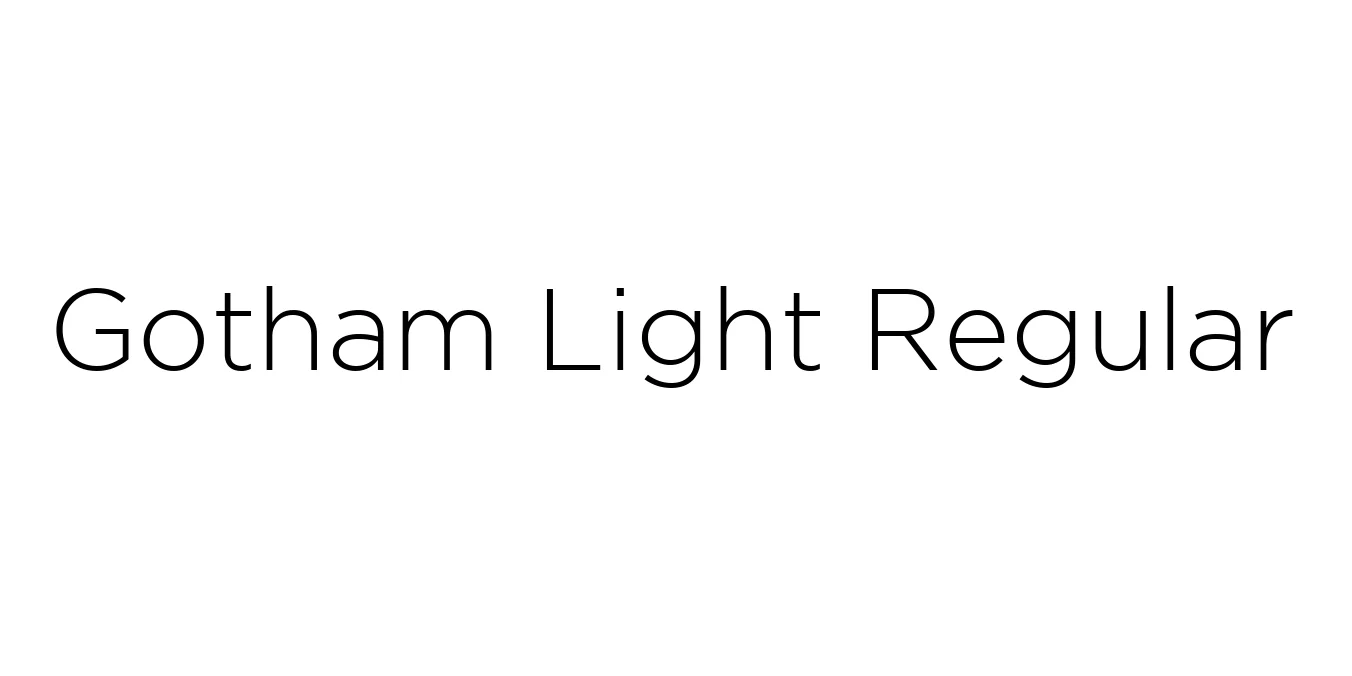
Gotham Light Regular
Designed by Tobias Frere-Jones
| Category | Geometric Sans-Serif |
Gotham Light Regular was designed in 2000 by the renowned type designer Tobias Frere-Jones. Originally commissioned by GQ magazine, the font was inspired by the architectural signage of mid-20th century New York City, specifically the gritty but honest lettering found on buildings like the Port Authority Bus Terminal. This geometric sans-serif captures a uniquely American aesthetic that feels both nostalgic and timeless.
The Light Regular weight of the Gotham family is celebrated for its elegance and clarity. It became a global cultural phenomenon during the 2008 U.S. Presidential election, where its clean lines and modern feel were used to define a new era of political communication. Today, it remains a staple for designers looking to achieve a professional, authoritative, and minimalist look across various media platforms.
Creating clean and professional brand identities and logos.
Perfect for high-end magazine headings and sophisticated body text.
Providing a modern and readable user interface for websites and apps.
Effective for clear and legible wayfinding systems in urban environments.